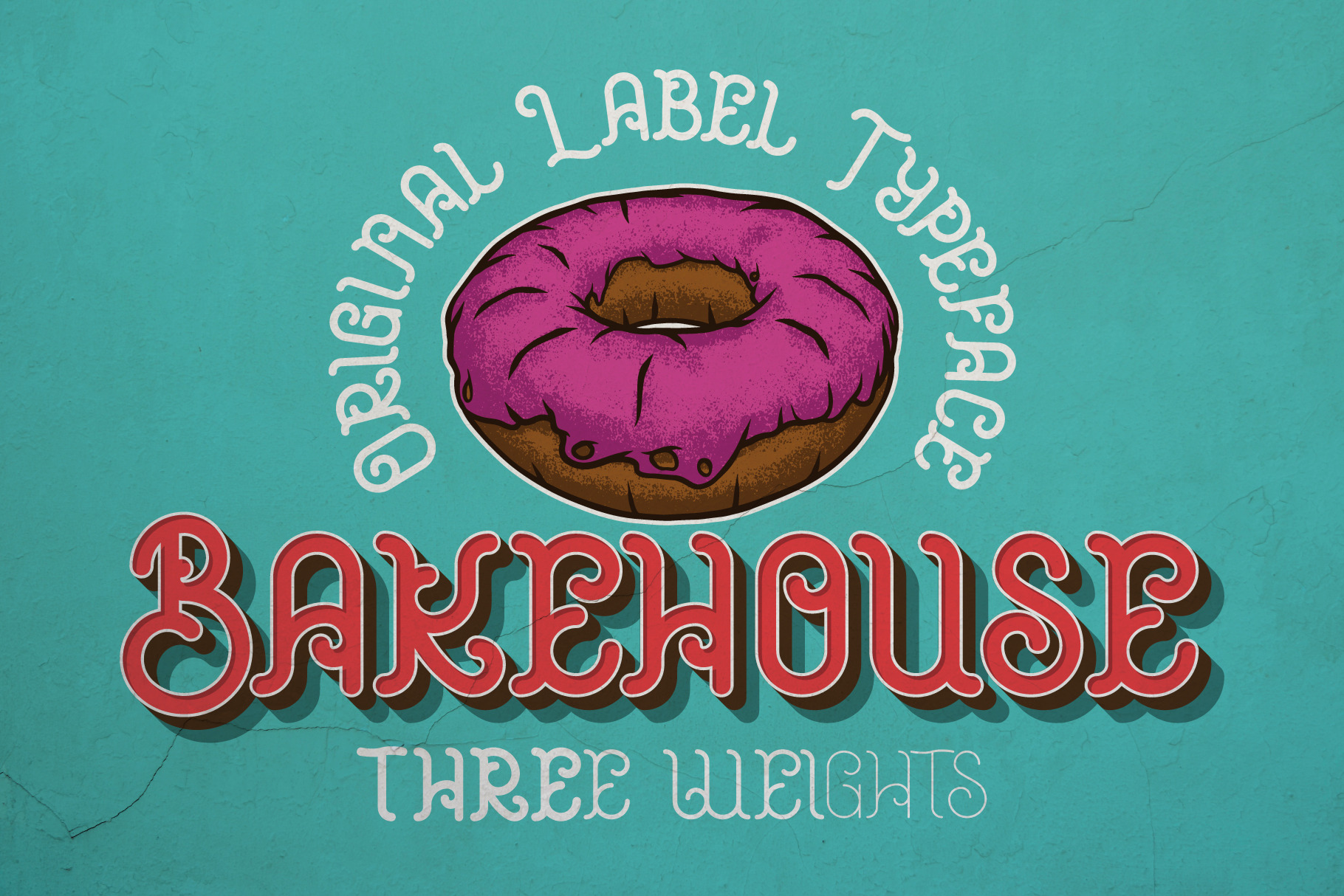
Bakehouse Label Font
Introducing a curly label font named "Bakehouse". This family includes three styles - Regular, Light and Thin. Samples you can find on the preview. This font will good viewed on any retro design like poster, t-shirt, label, logo etc.